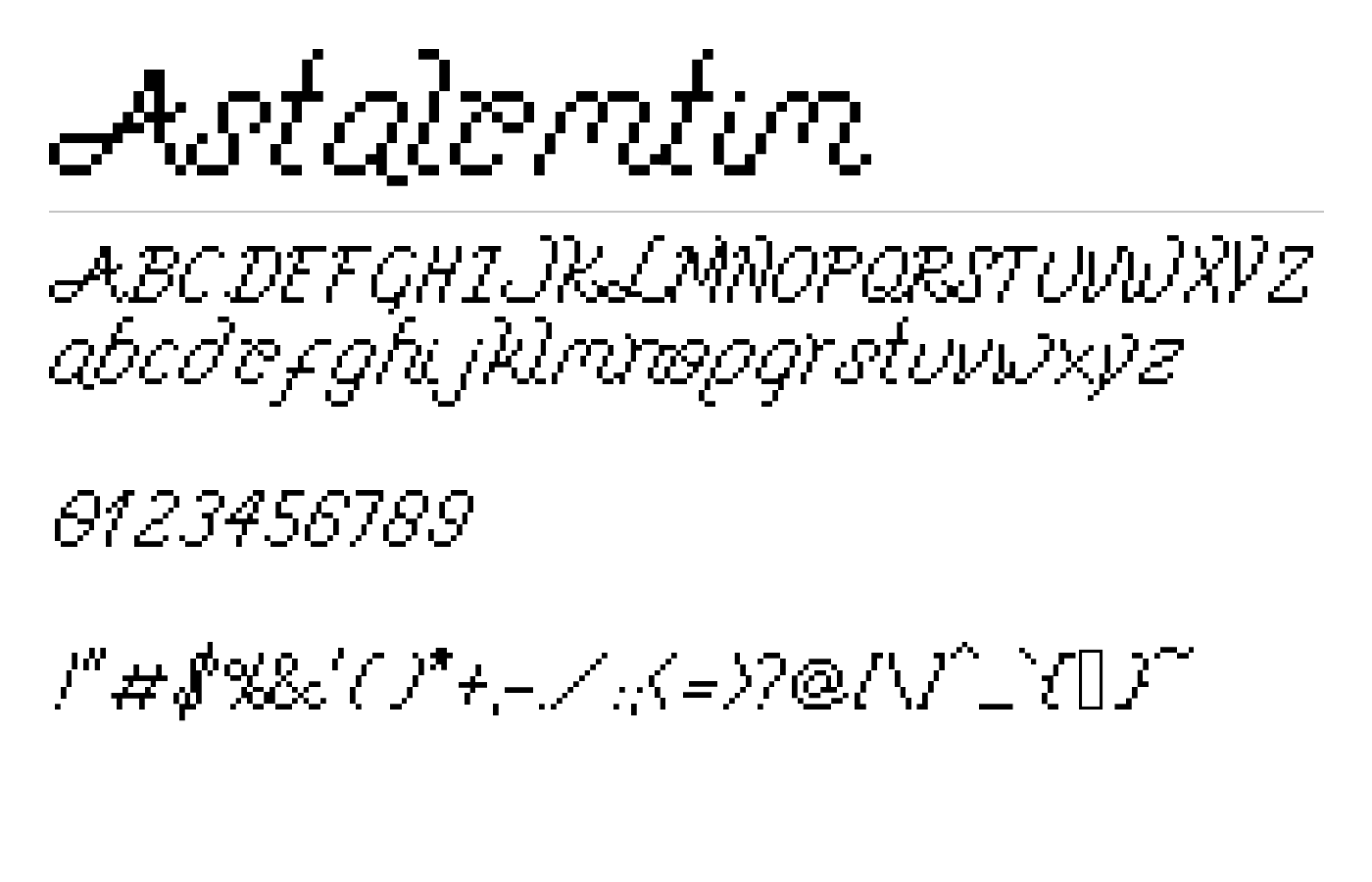
Astalemtim is a pixelated script font that combines the charm of handwritten cursive with a digital, retro aesthetic. Its thin, slightly slanted strokes and monospaced, pixelated structure give it a unique, playful vibe that works well for nostalgic or tech-inspired designs, especially in headlines, logos, and digital art. This font suits projects aiming for a distinctive blend of vintage computer style and casual elegance.
Astalemtim Font
About Astalemtim Font